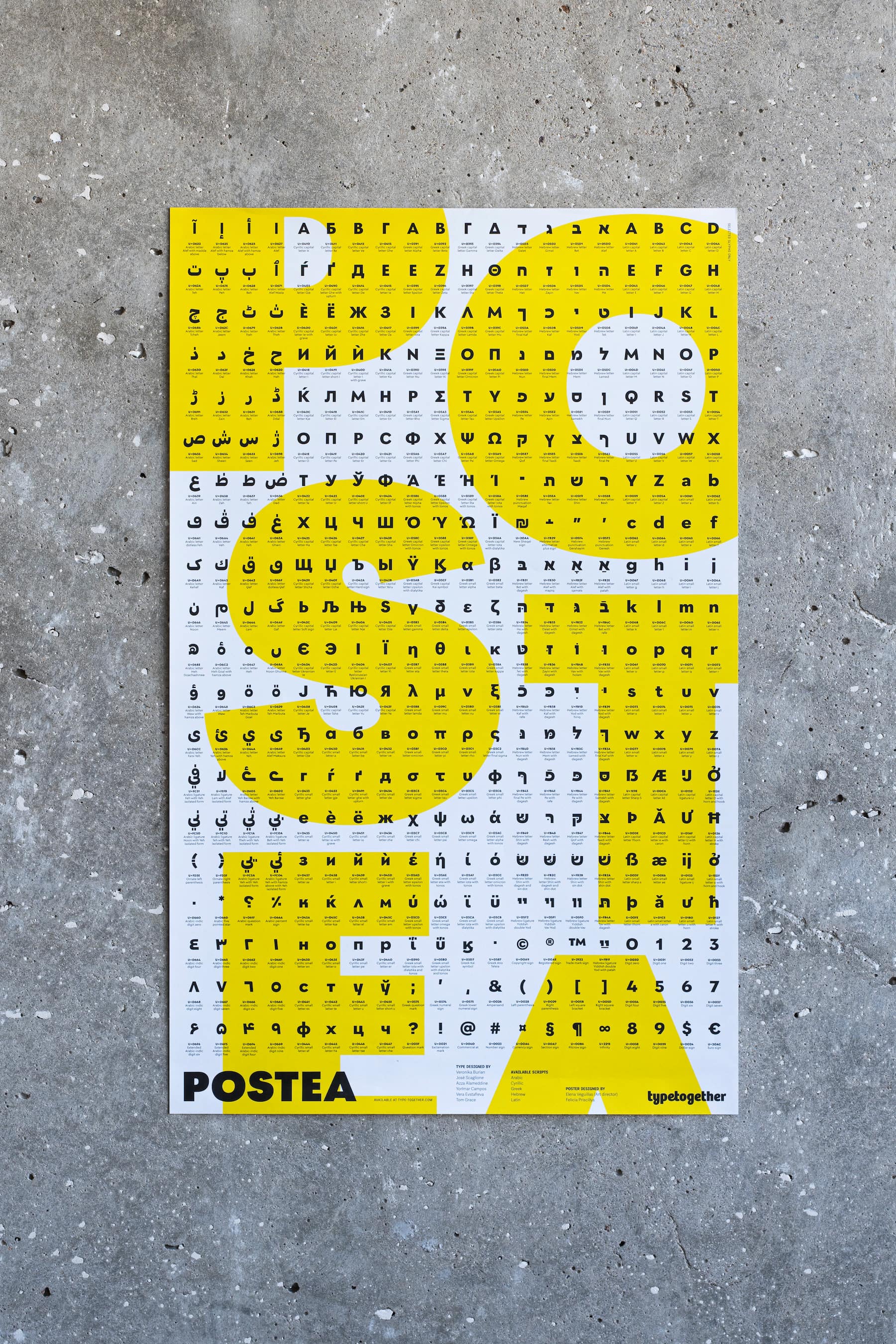
New Futura®100 and Postea printed matter
Like many in the graphic design community, we love to see our work in print. We regularly create these items to mark our milestones, and our newest can be yours free.
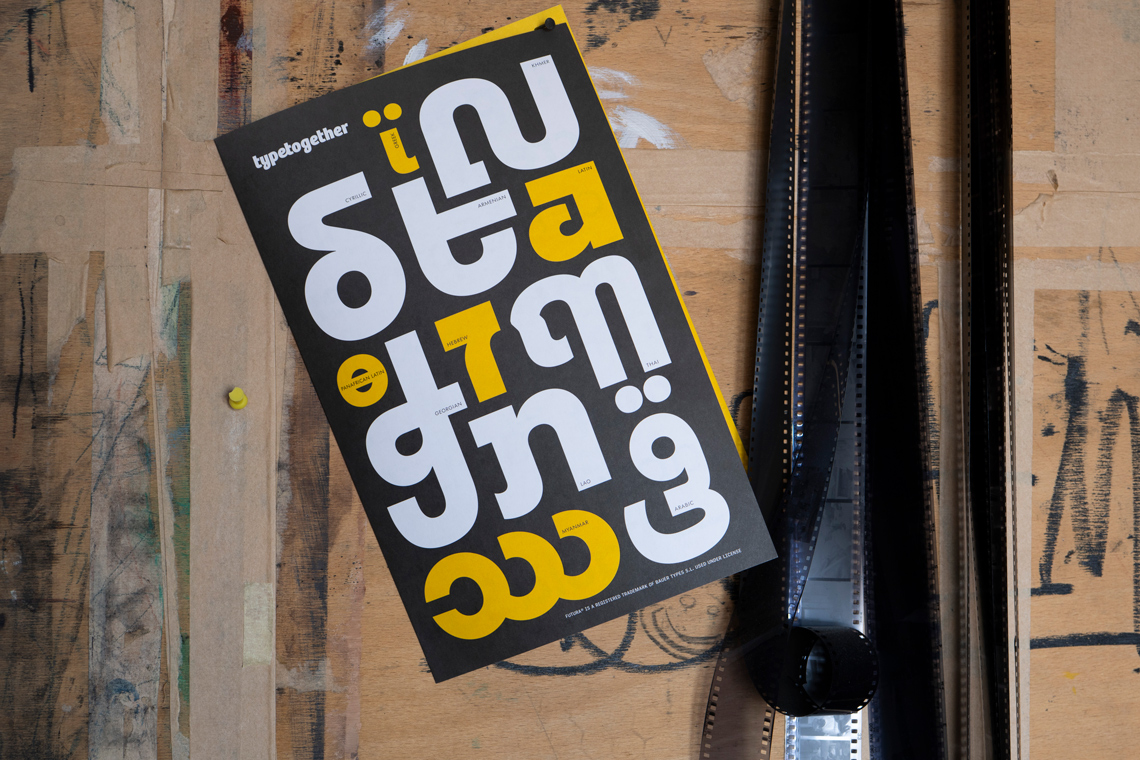
We at TypeTogether love printed matter. There’s something incredibly satisfying about seeing our type in print, which is one of the reasons why we commission various ephemera to mark important releases. To mark two recent milestones, we commissioned graphic designer Felicia Priscillya under the supervision of Elena Veguillas to create two posters and a printed specimen, and they can both be yours free – just cover the price of shipping and handling and they’re yours.
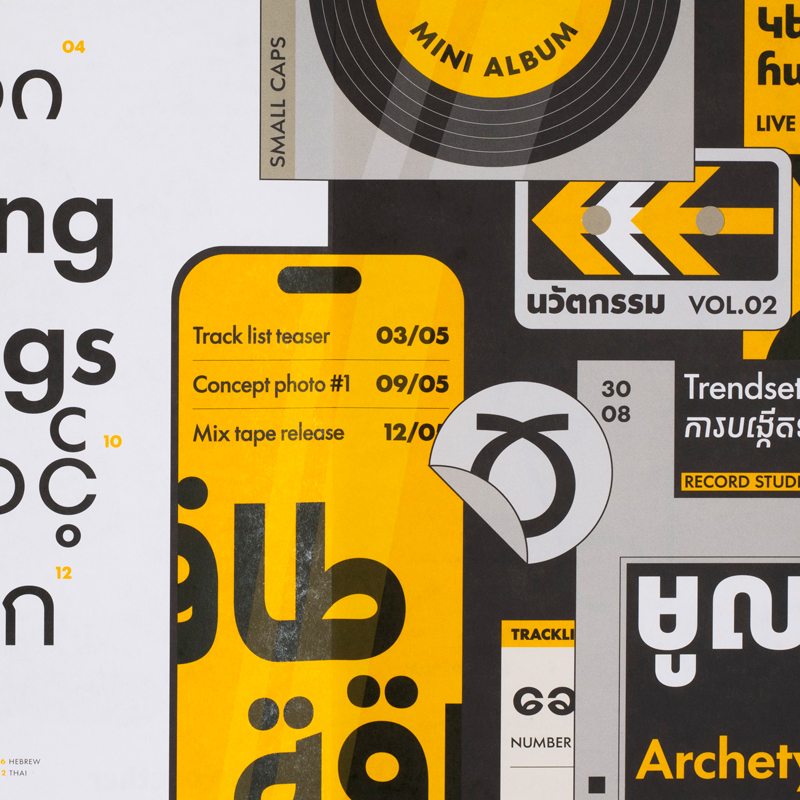
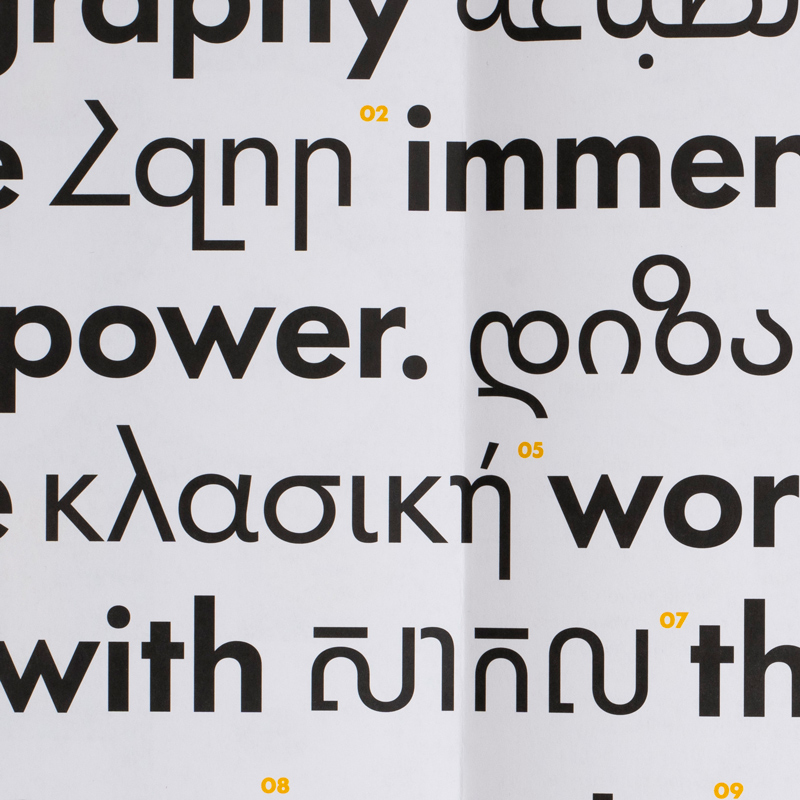
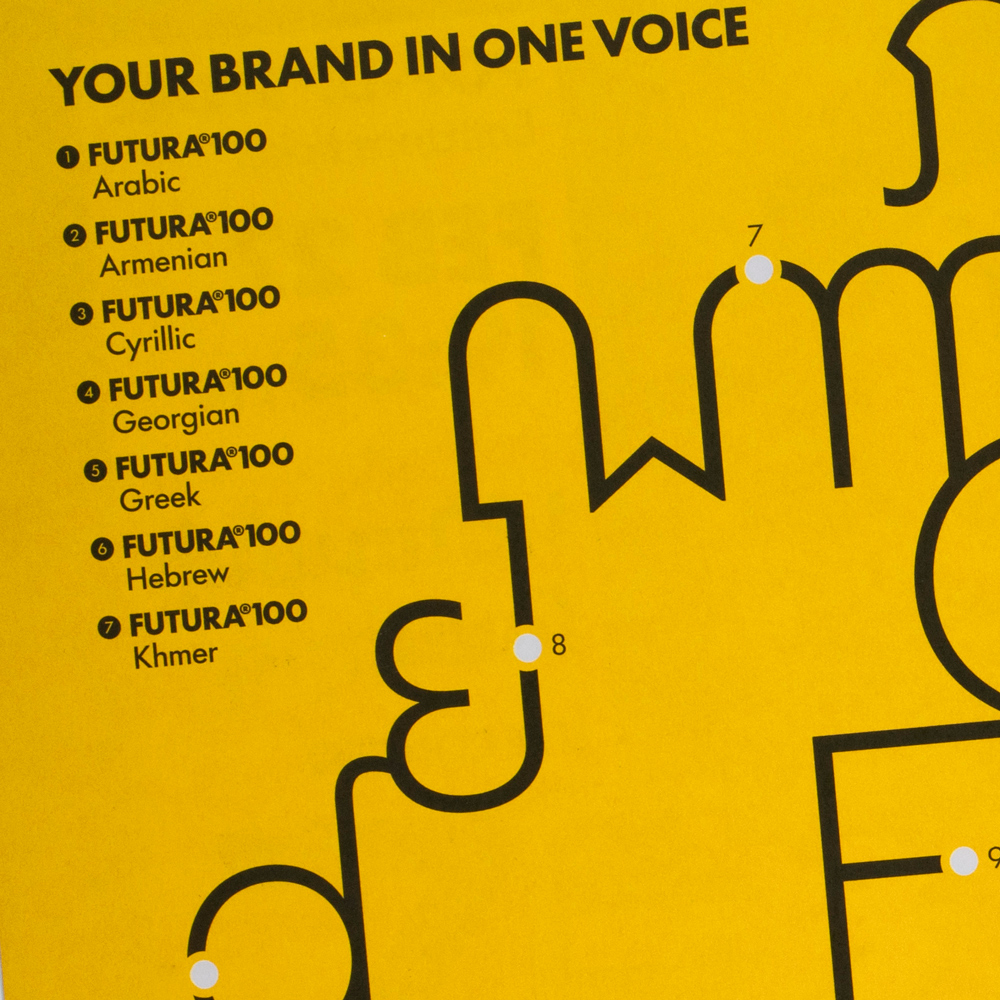
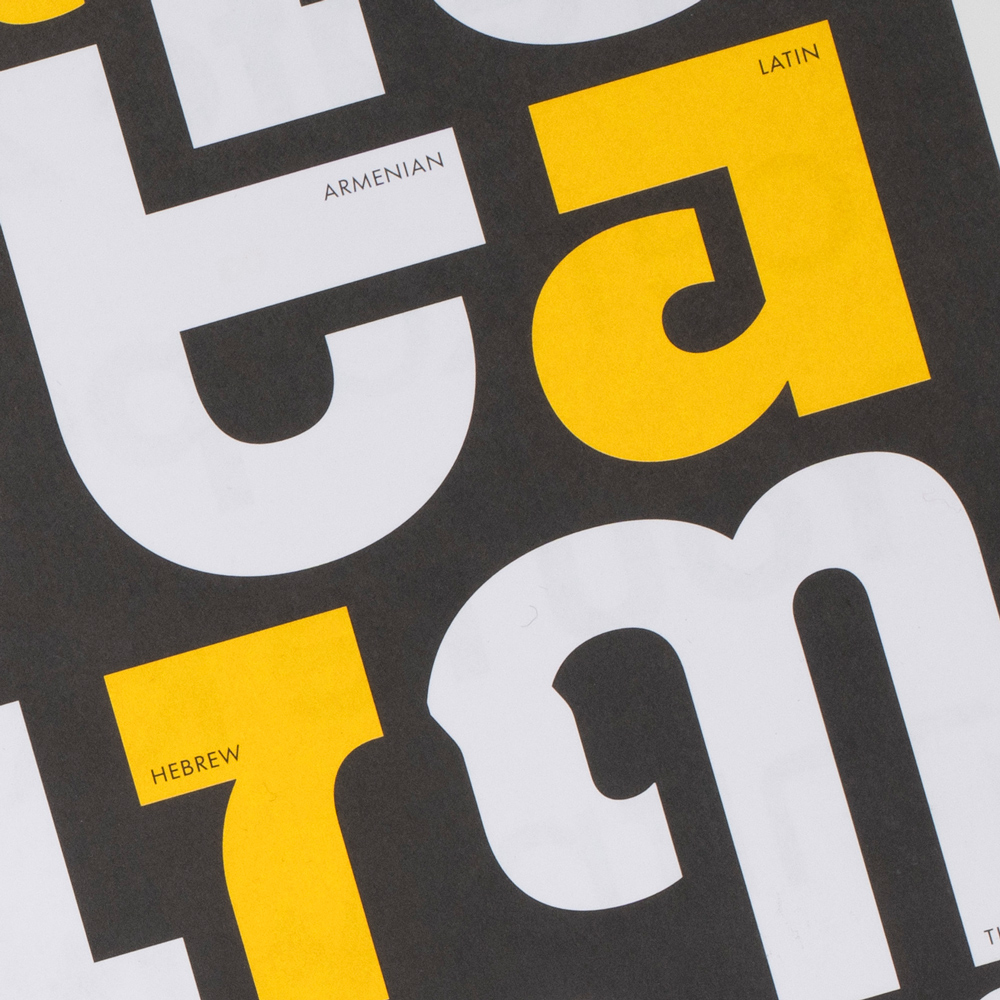
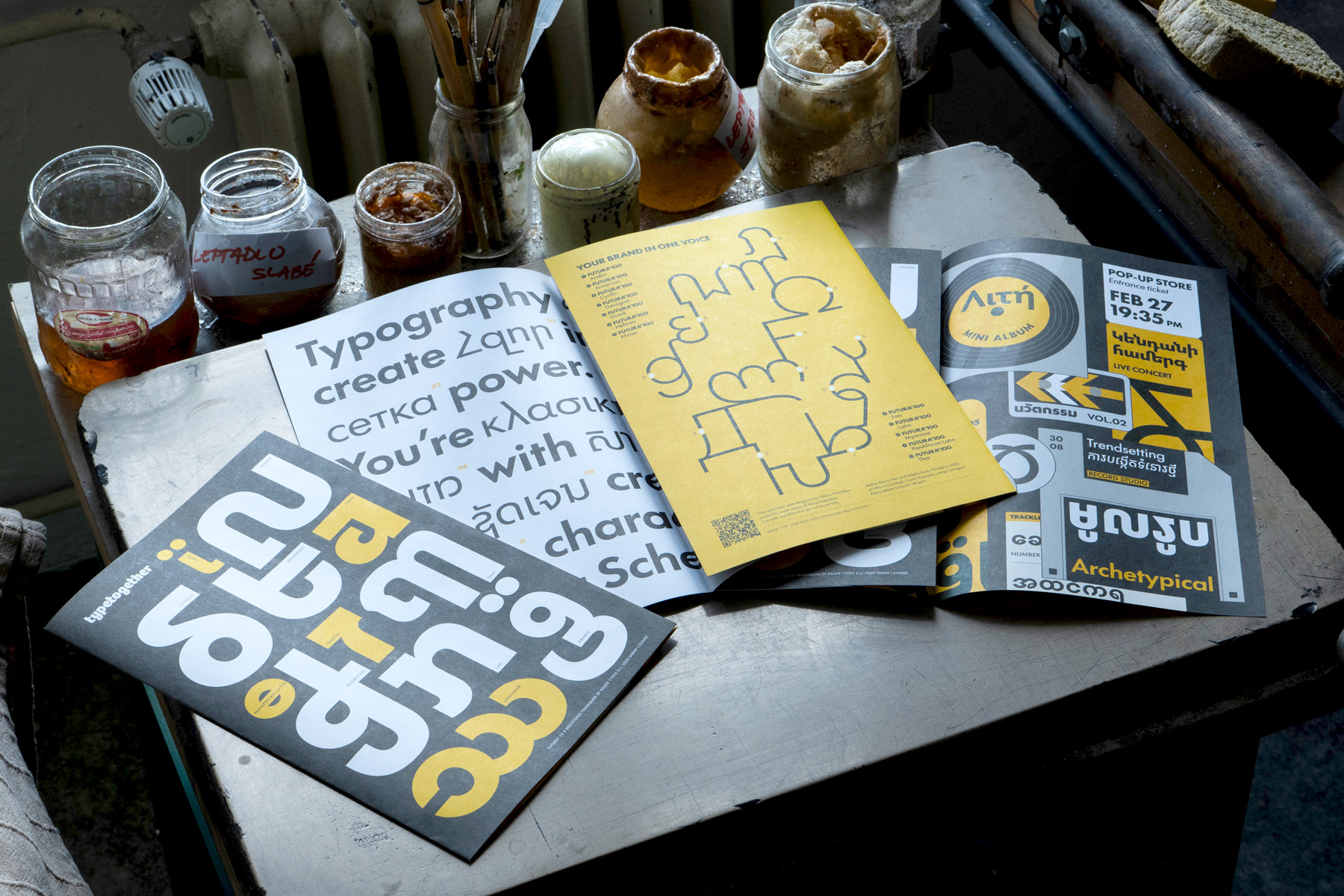
Futura®100 is one of TypeTogether’s most ambitious projects to date – a reimagining of Paul Renner’s iconic geometric sans into a total of 23 global scripts. The first release included 12 scripts – from Arabic to Thai – and has already received multiple awards. To mark the release of Futura®100 , we commissioned a poster and a printed specimen that colourfully highlight the energy and diversity of the release, and are sure to spark joy among ephemerists and typophiles alike.
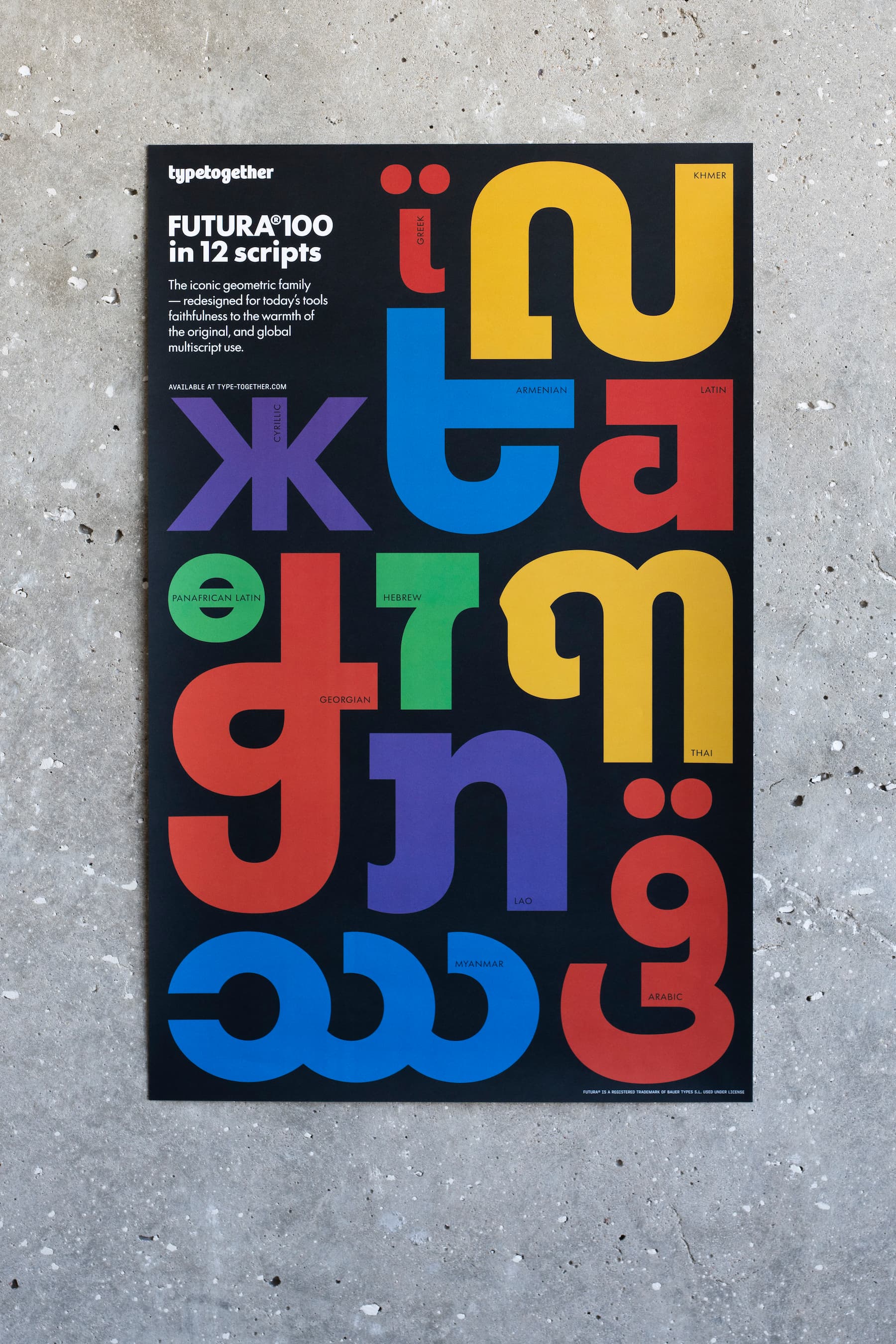
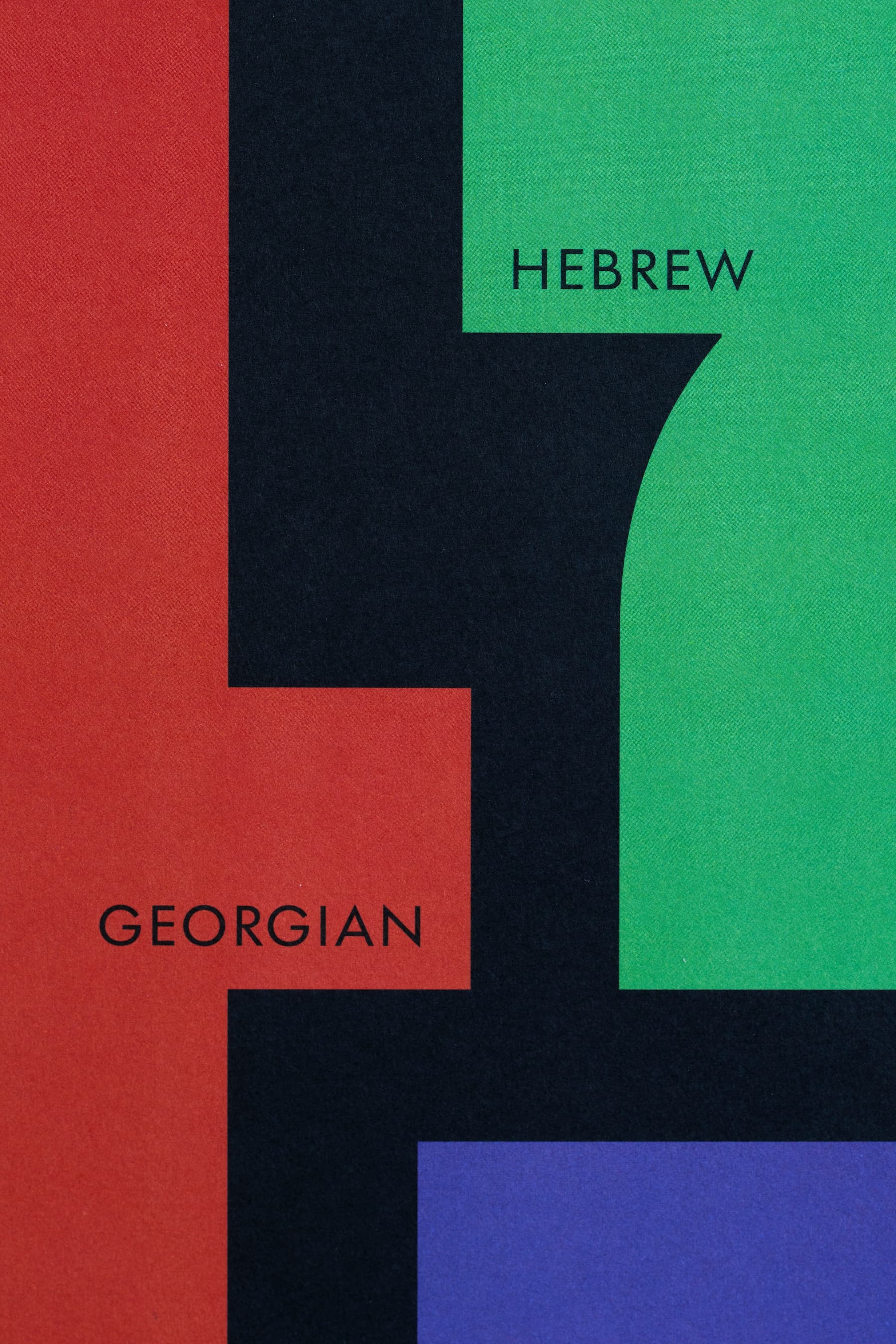
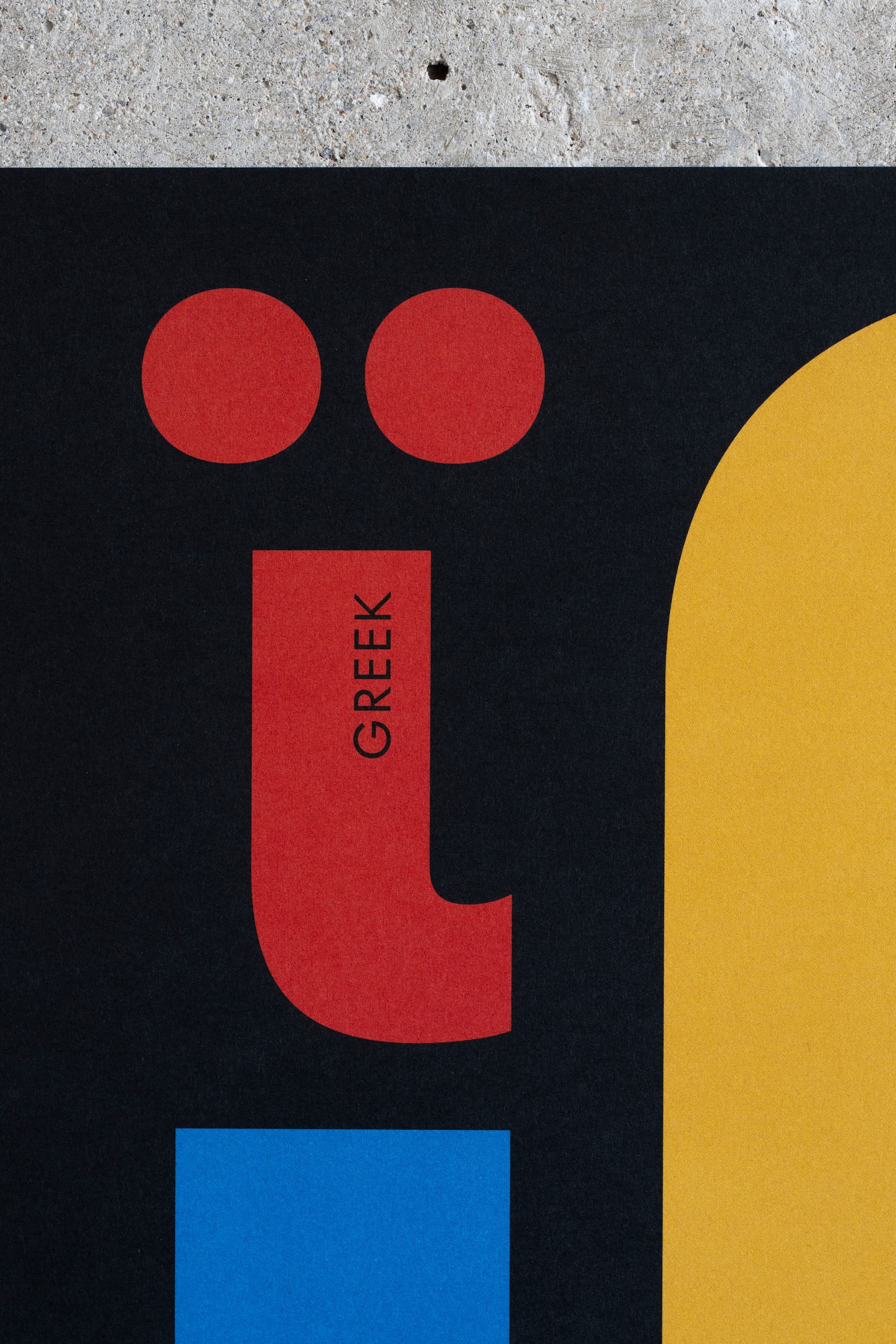
Postea is a geometric sans designed by José Scaglione and Veronika Burian, and following its 2021 release, we added four scripts – Arabic, Hebrew, Cyrillic, and Greek – to the original Latin. As Postea Cyrillic type designer Vera Evstafieva points out, the poster features lemon yellow everywhere. “I just love Postea,” Vera says, and so do we.